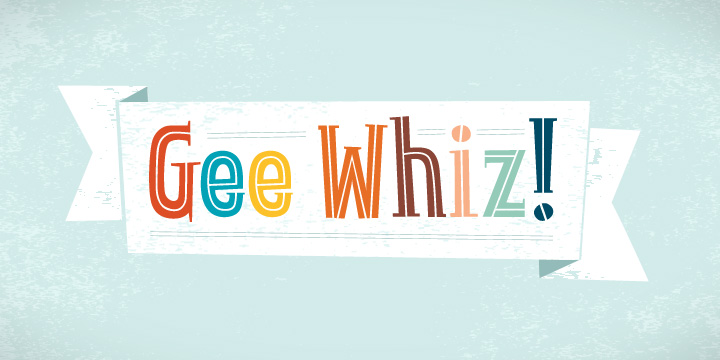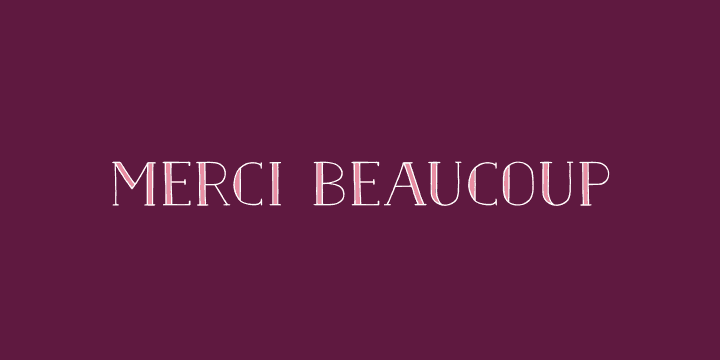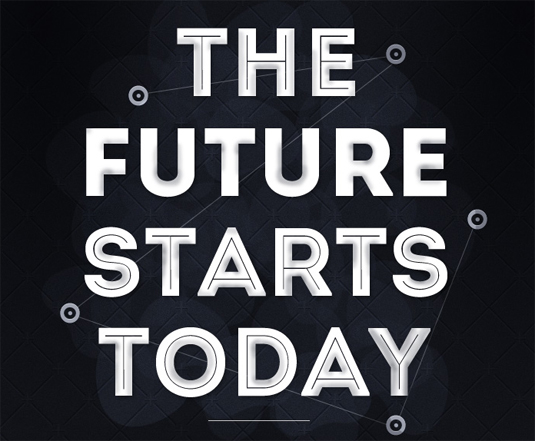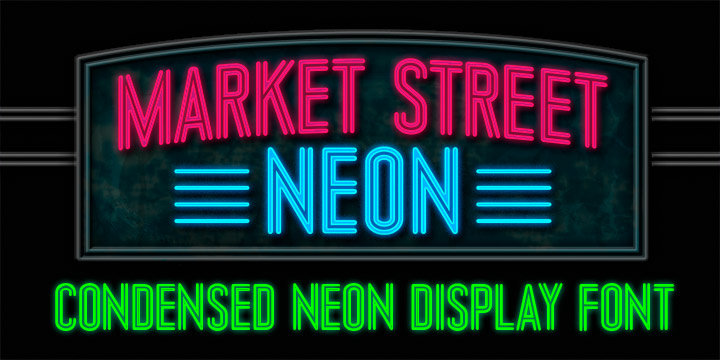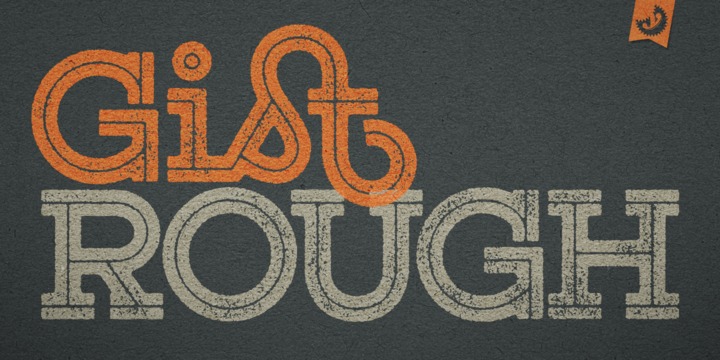
5 inline typefaces for your design projects
Leaving the drop shadows behind, inline typefaces are the perfect choice for any design project.
Inline typefaces are becoming more and more popular as a method of introducing depth or visual interest, particularly as the flat design trend has taken hold.
Here, we pick five of our favourite inline typefaces to introduce you to the latest craze; some are even free fonts for you to download and use straight away. We'll add more to this list as we find them - and please feel free to share your favourite inline fonts with the design community in our comments section at the foot of the article.
01. Gist Rough
Created by Yellow Design Studio, Gist Rough the letterpress version of Gist. Combining both retro and modern influences, it's the perfect inline typeface for those of you that love a font that's a little rough around the edges. There's varying lavels of texture with every weight that can be mixed or used individually.
02. Intro
A completely free inline typface, Intro serves as the perfect introduction to inline typefaces. The geometric make-up and structure makes it a beautiful choice for designers and using sharpened edges for the 'A', 'V' and 'W' letters ensures it's a stand-out, unique offering.
03. Naive Inline
Naïve Inline is a serif handwritten font designed by Fanny Coulez and Julien Saurin for La Goupil Paris. The three weights of this retro parisian typography can be enhanced with a bicolor interior, ribbed or full, to improve your designs and bring a nostalgic and unusual feeling. To do so, you can simply superimpose the 2 elements: the weight above, the interior below.
04. Market Street Neon
Created by MyFonts' Lori Lebeau-Walsh, Market Street Neon is an inline typeface packed full of fun. "I designed this font to be a little bit more 'San Francisco' (hence the name of the font), with a contemporary and upscale feeling. It’s intended for use in larger sizes of type, upwards of 48 pt," explains Lebeau-Walsh.
05. Skunkling
Packed full of personality, Skunkling is a fun little inline typeface to use in all your flat design projects. "It was inspired by a real-life encounter between a spraying skunk and a defenseless designer," explains designer Jason Jones. "It was designed to be playful and even awkward." We love it.